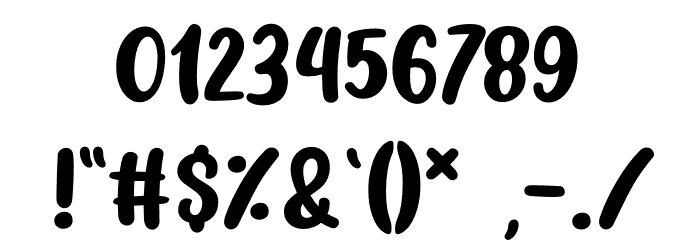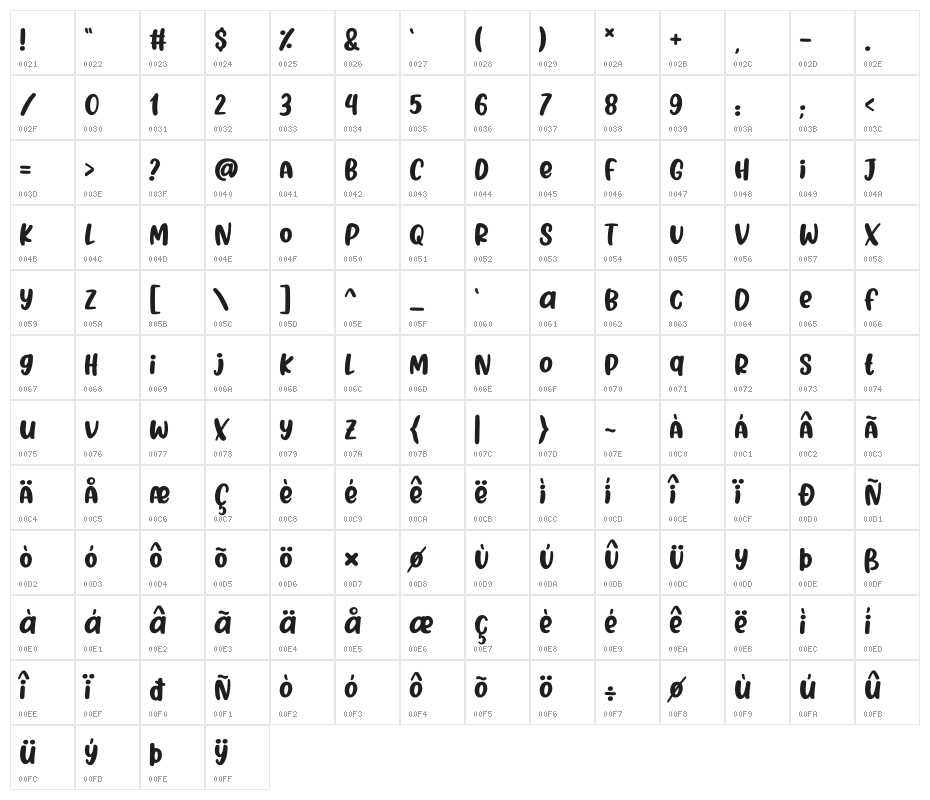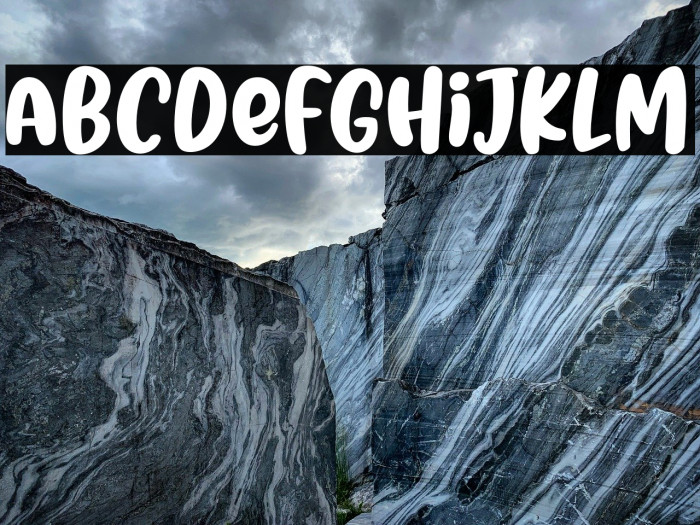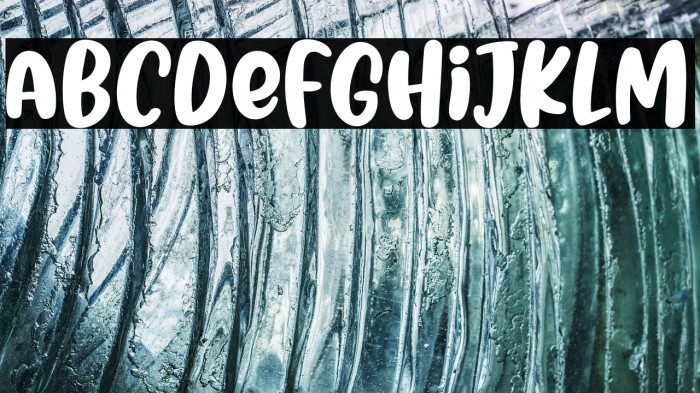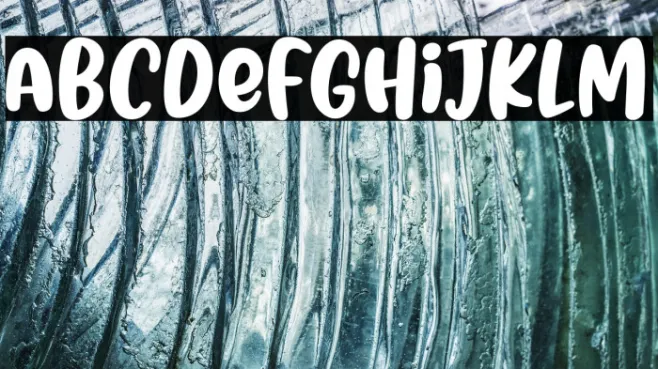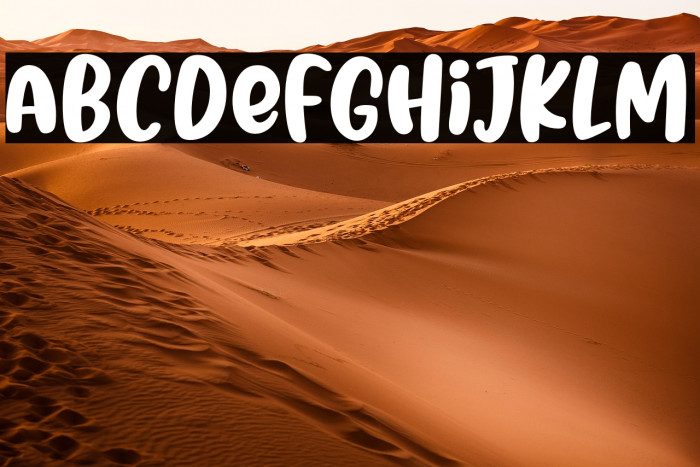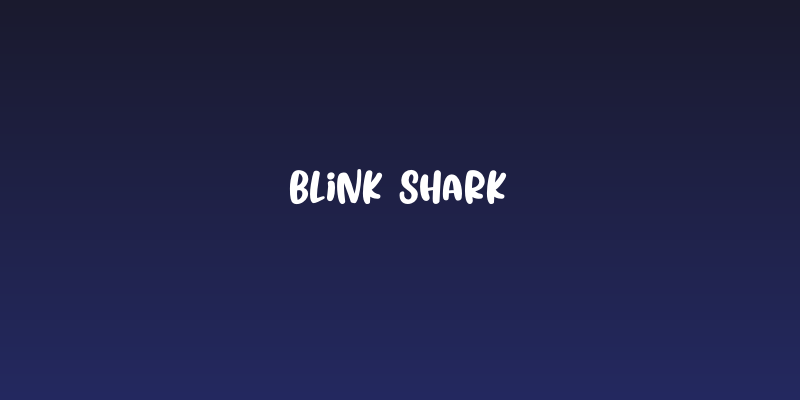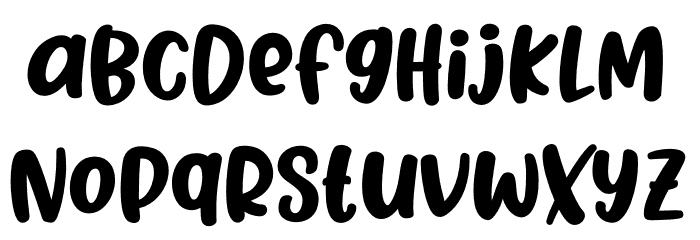
BLINK SHARK Font
BLINK SHARK Description
This font features a playful and bold style, characterized by its rounded and thick letterforms. The letters have a consistent stroke width, giving them a uniform appearance. The font exudes a friendly and approachable vibe, making it ideal for casual and fun designs. Its rounded edges and smooth curves contribute to its whimsical and lively personality. The characters are well-spaced, ensuring readability while maintaining a cohesive look. This font is versatile, suitable for various creative projects that require a touch of humor and lightheartedness.
| Proposed Projects | Ideal for children's books, playful branding, greeting cards, and social media graphics. |